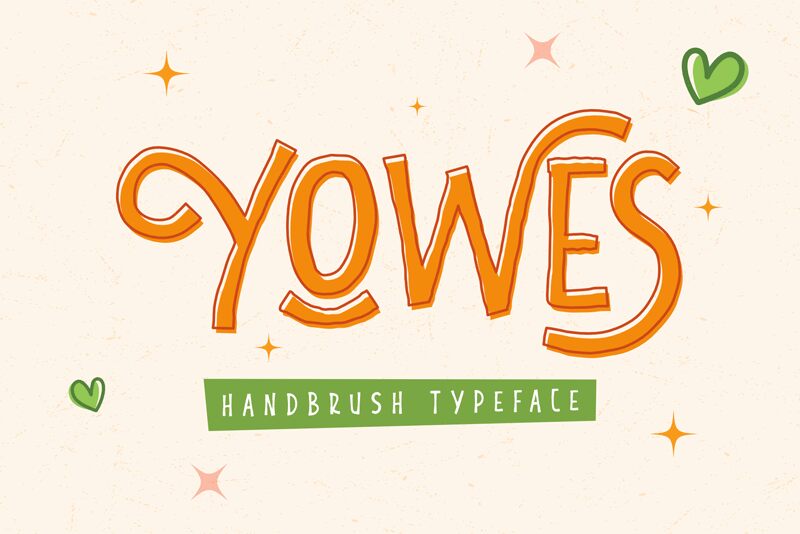
Yowes
Yowes, the charming display font designed by DumadiStyle, adds a touch of whimsy to any project. With its semi-light weight and cute vintage comic style, Yowes is perfect for designs seeking a playful aesthetic. Its unique character set makes it suitable for a range of projects, from children's book covers and posters to social media graphics and product packaging. Whether you're looking to add a bit of fun to your brand or create eye-catching visuals, Yowes is sure to delight audiences with its playful personality.